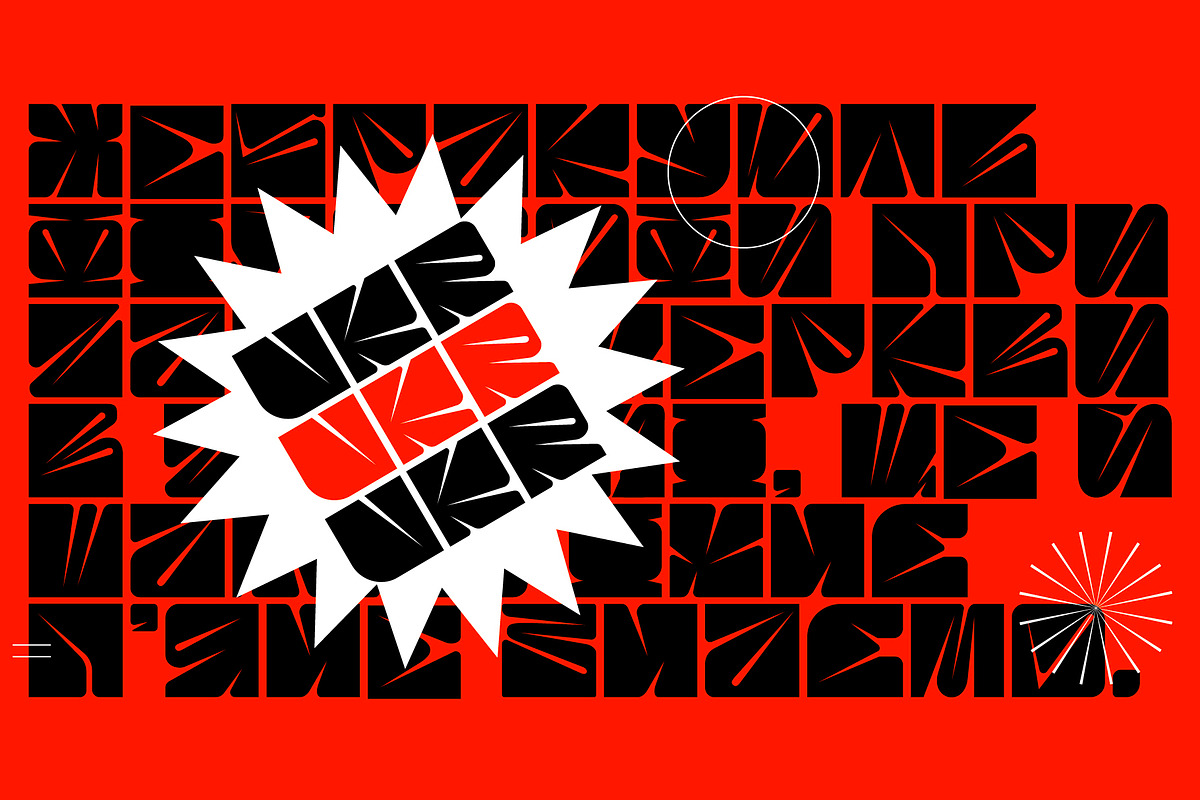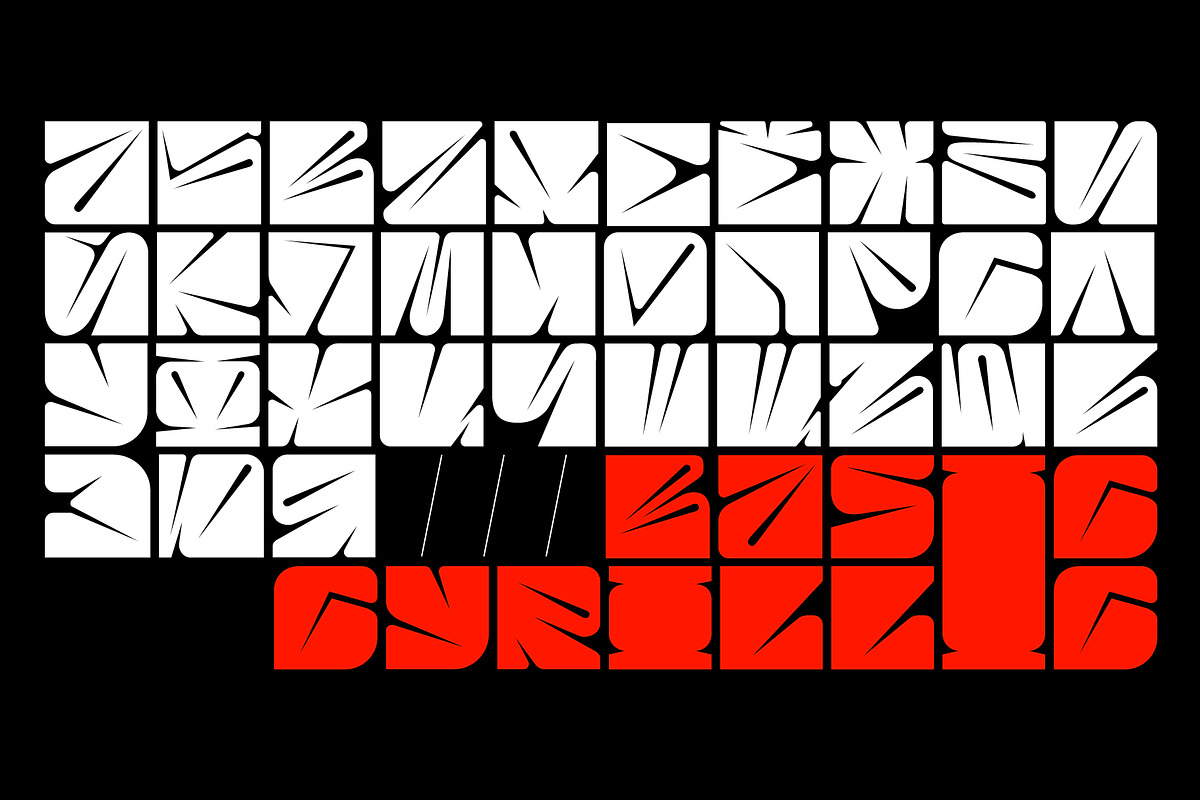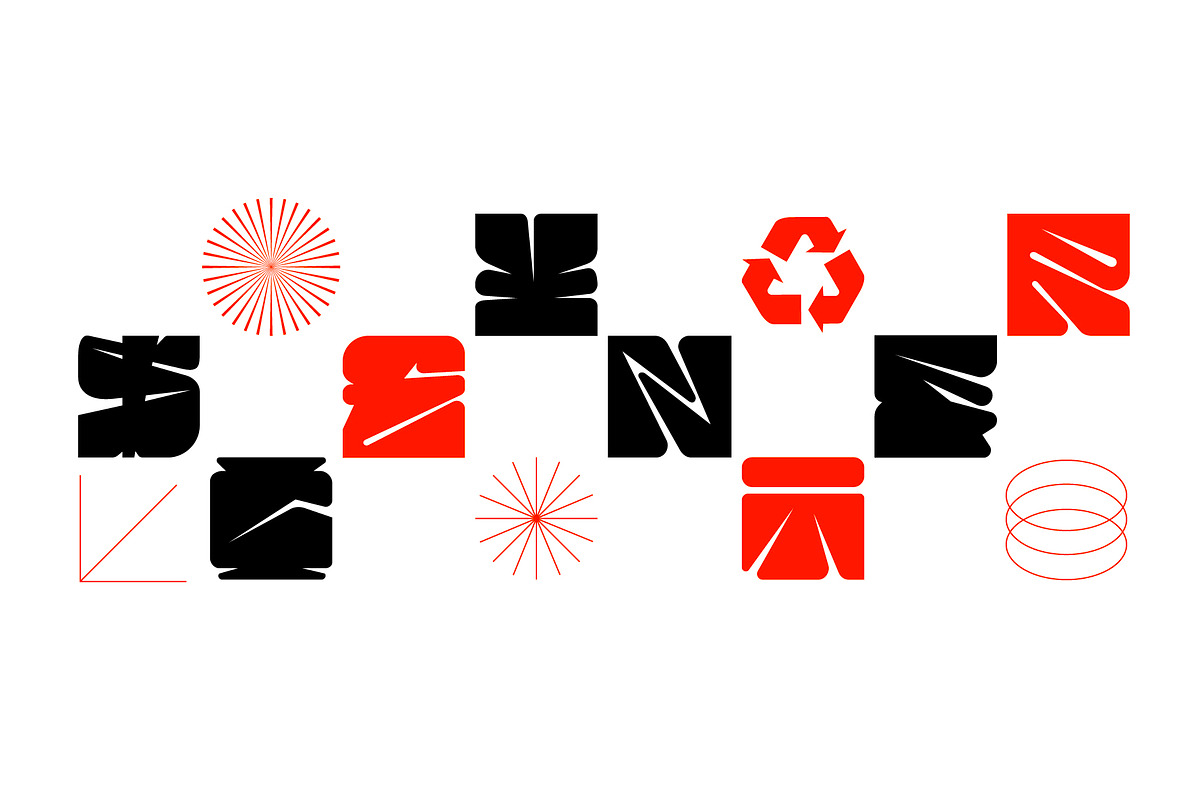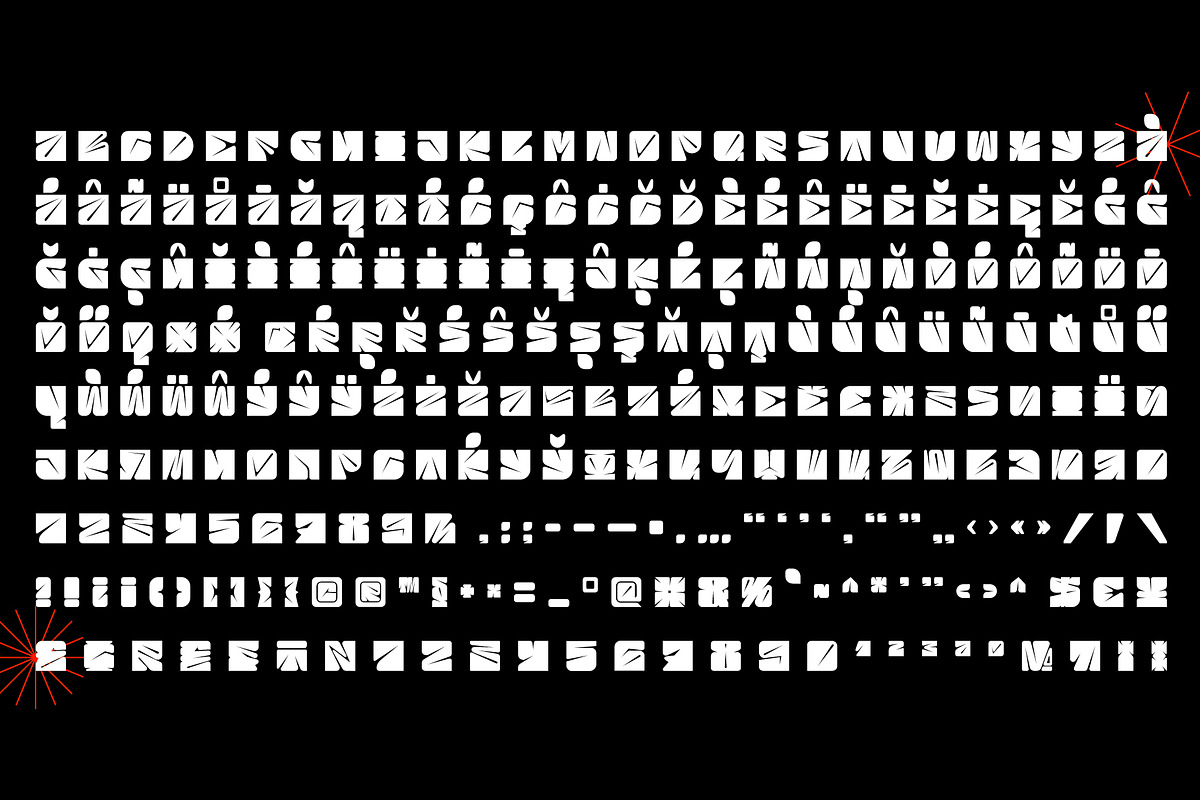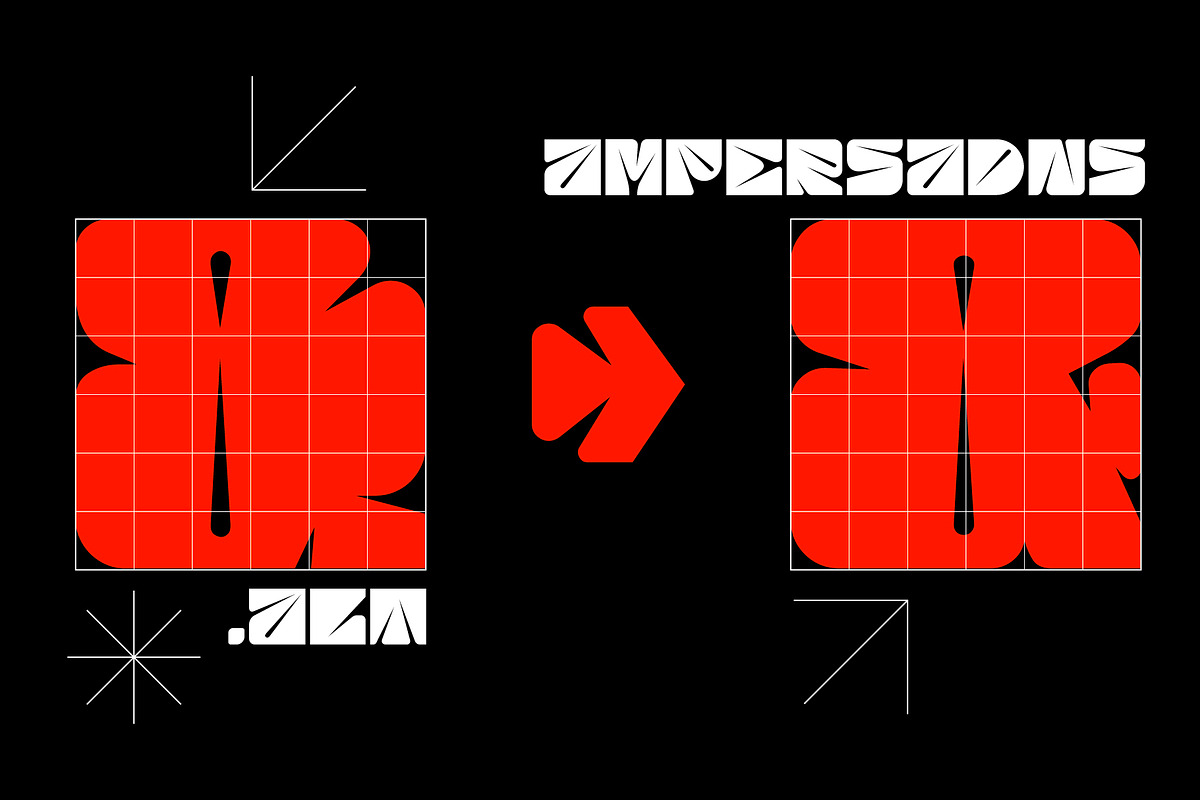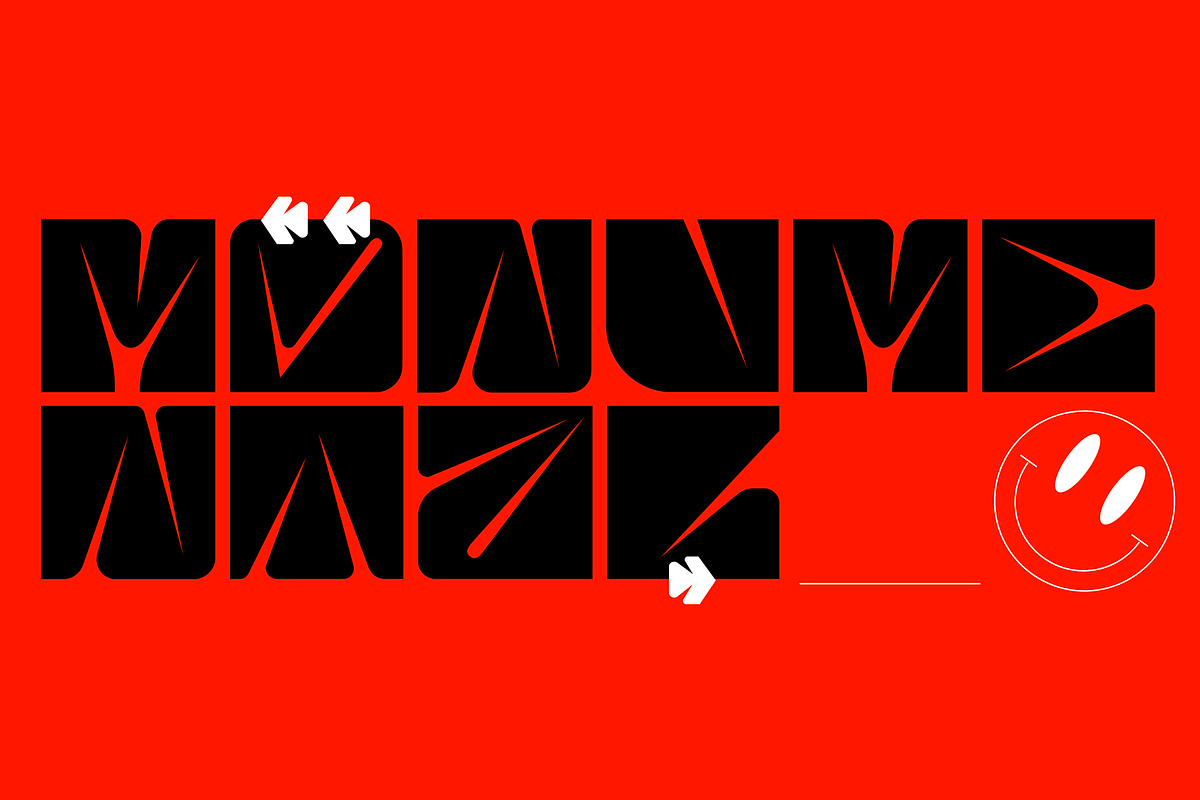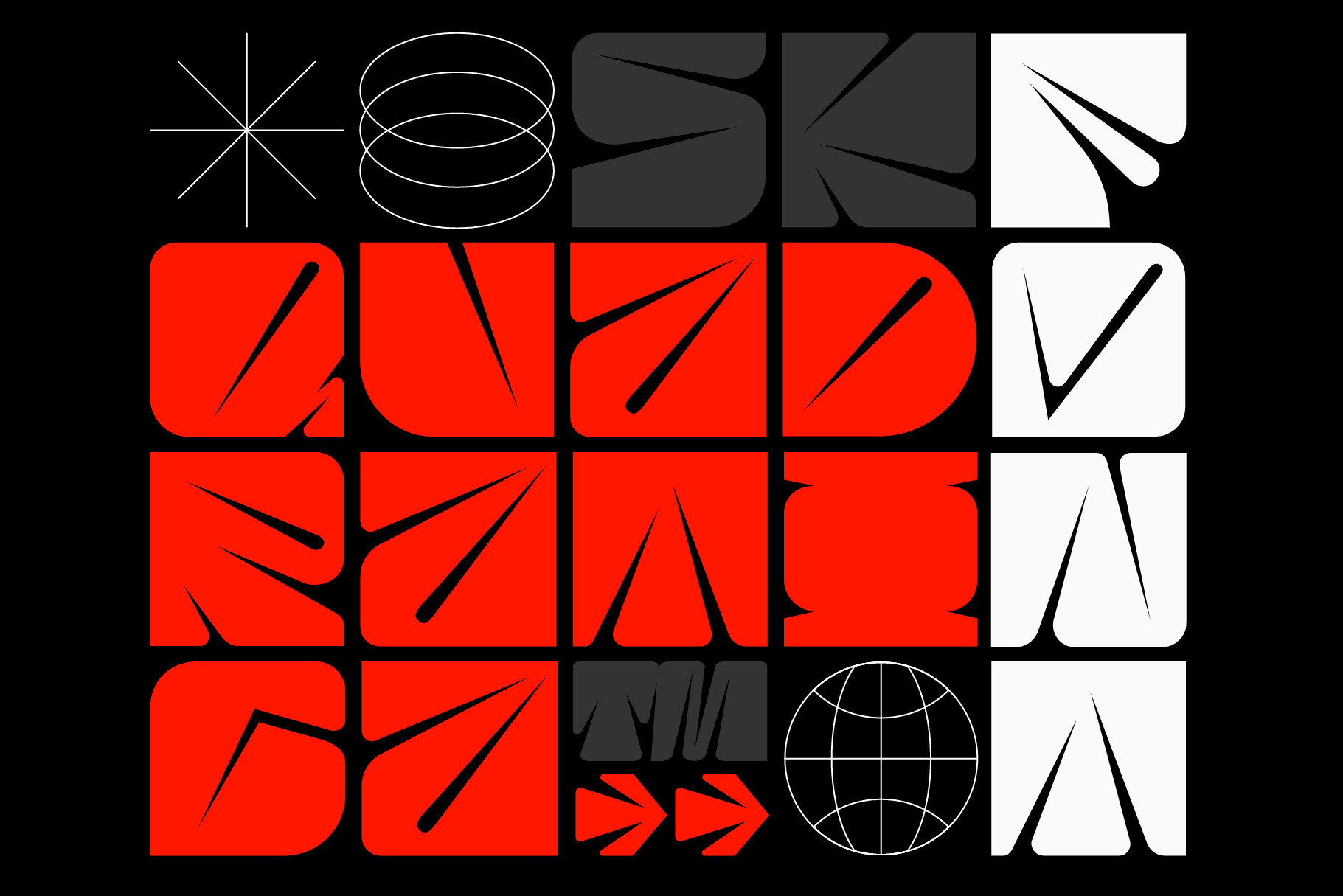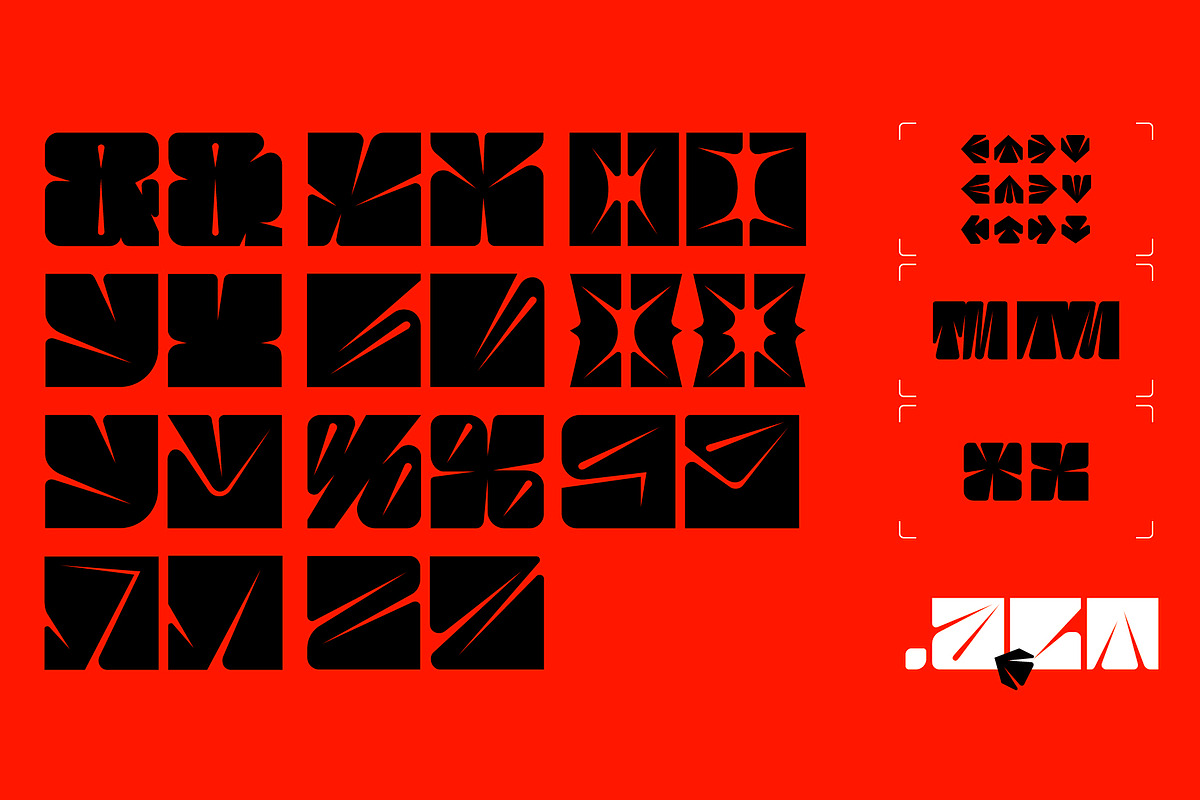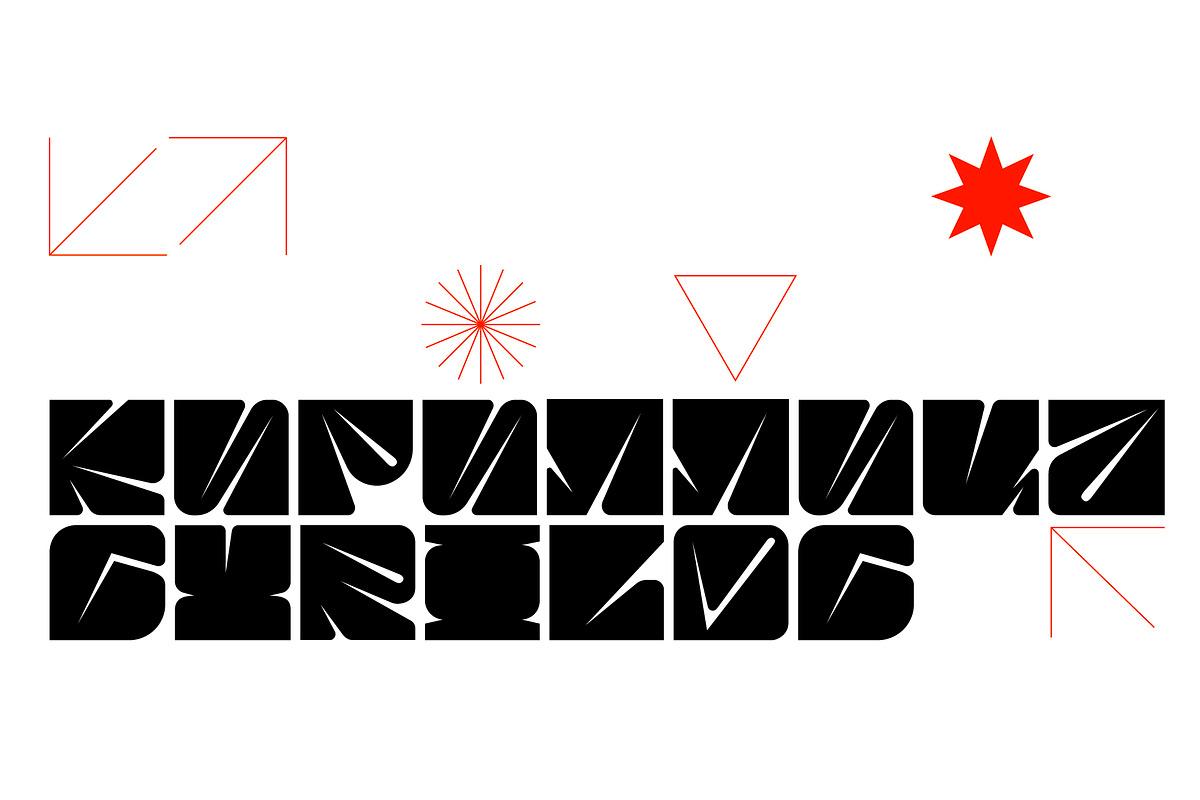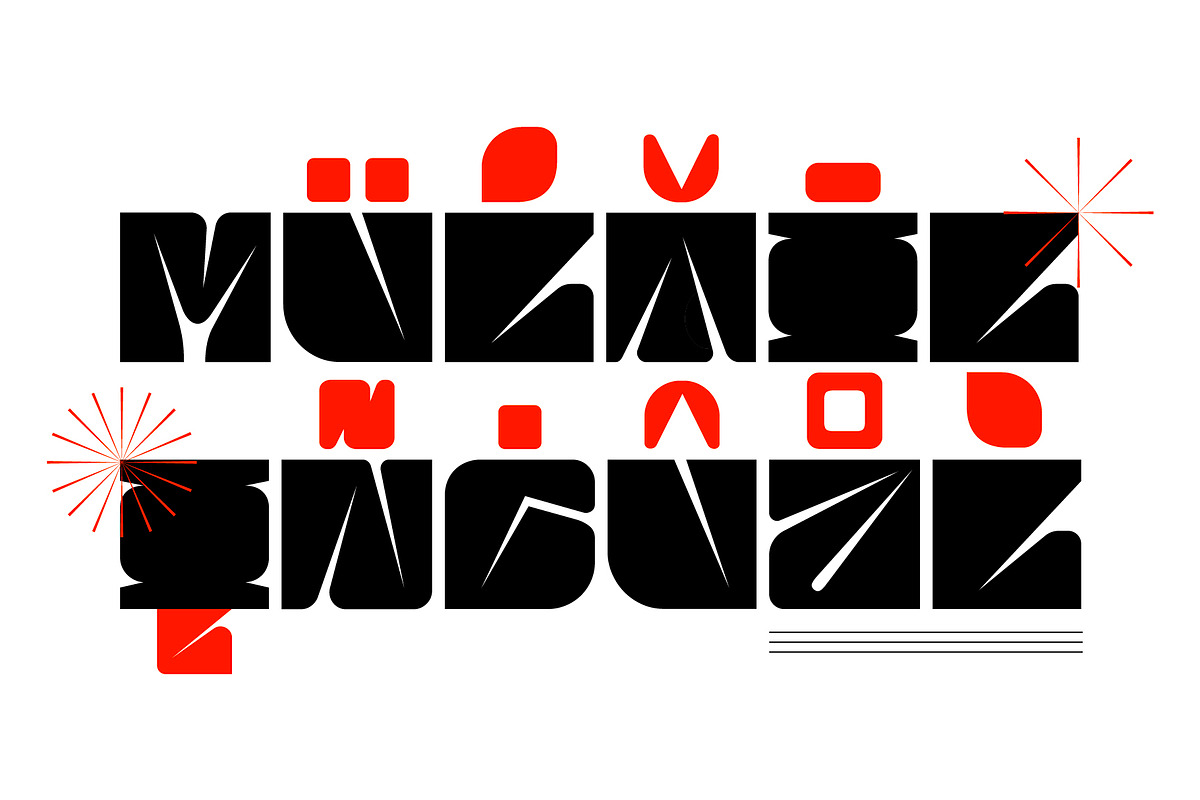
SK Quadratica — Monumental Font
SK Quadratica is a monumental accidental typeface inspired by the coexistence of nature and human industrialization. Font characters are similar to blocks. The block structure of the typeface allows you to create various typographic compositions with striking simplicity. Besides, typeface symbols are easy to modify because of which it is a pleasure to work with it. SK Quadratica also contains many alternative character variations. In addition to the basic Latin alphabet, the font supports various languages, including the expanded Latin alphabet, Cyrillic, etc.